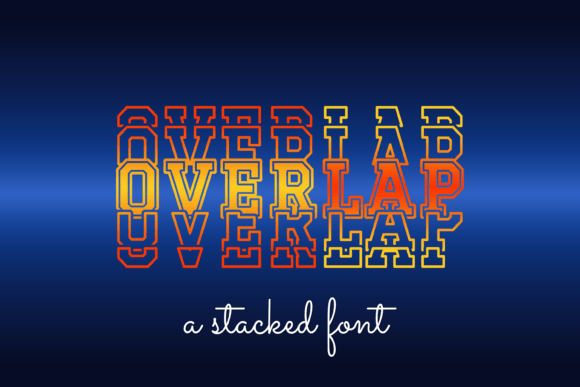
Introducing Overlap Font: The Ultimate Decorative Sign Solution
In a world craving visual appeal, your creations deserve a font that captivates and enchants. Overlap Font, a display font family, emerges as the answer, transforming your designs, DIY crafts, and creative endeavors into masterpieces.
Created by the renowned WADLEN, Overlap Font is not just a font; it's an experience. Its intricate design, inspired by the beauty of overlapping shapes, adds a touch of elegance and sophistication to any project.
Picture this: A stunning invitation adorned with Overlap Font, leaving a lasting impression on your guests. Or, envision a handmade sign, expertly crafted with Overlap Font, becoming the centerpiece of your home décor. From T-shirt designs to social media graphics, Overlap Font breathes life into your creations, making them stand out from the mundane.
Overlap Font is more than just a collection of letters; it's a gateway to creativity. Its versatility knows no bounds, allowing you to explore a myriad of styles and themes. Whether you're designing a modern logo, a whimsical poster, or a rustic wedding invitation, Overlap Font adapts seamlessly, becoming an integral part of your artistic vision.
With Overlap Font, you're not just downloading a font; you're embarking on a journey of aesthetic exploration. Its beauty lies in its ability to transform the ordinary into the extraordinary, making your creations captivating and unforgettable.
So, why settle for ordinary fonts when you can embrace the allure of Overlap Font? Unleash your creativity, let your imagination soar, and experience the joy of creating with a font that truly inspires.